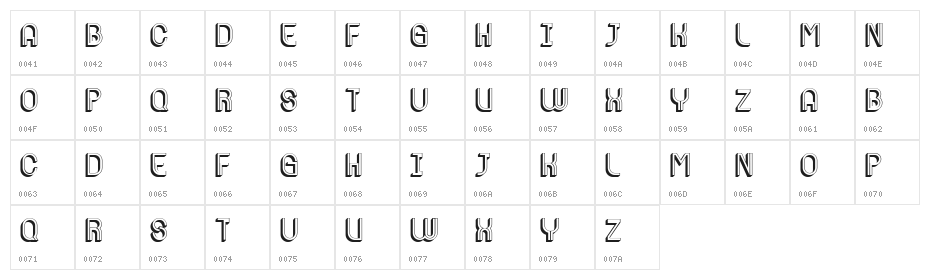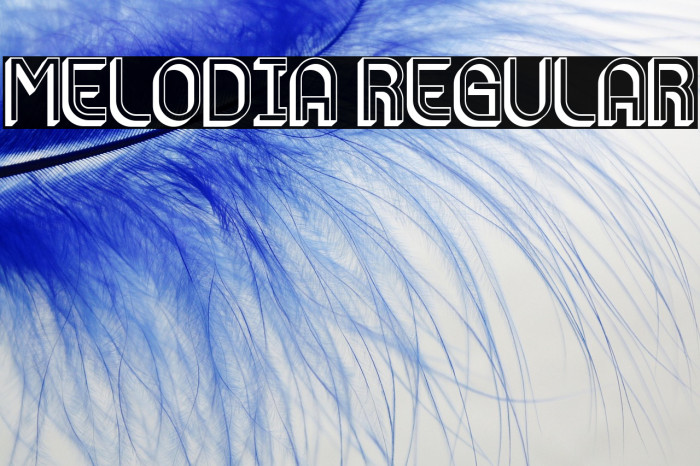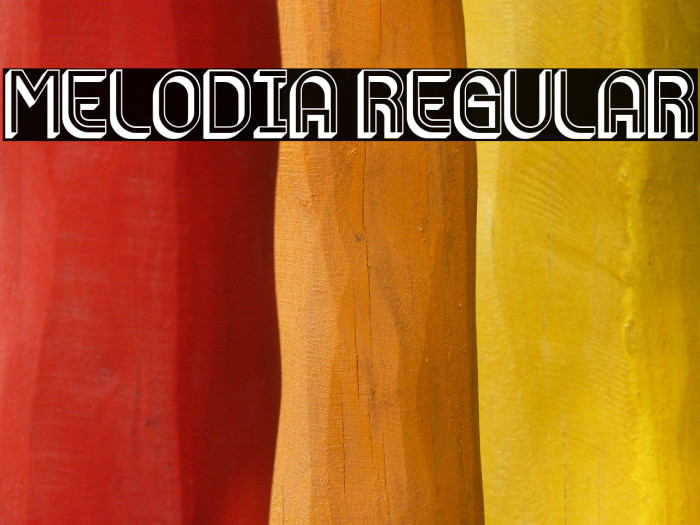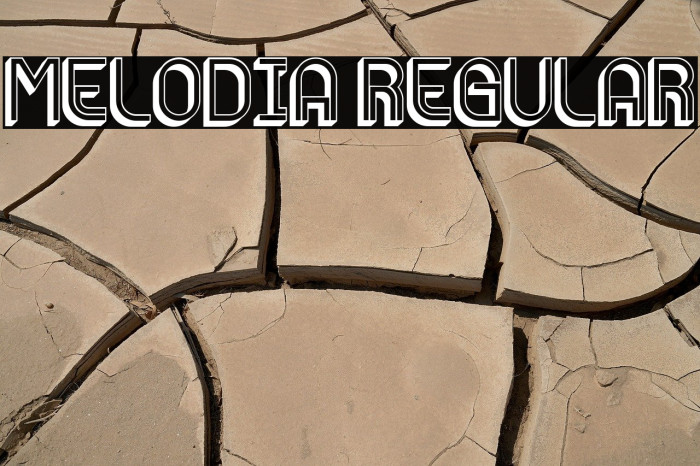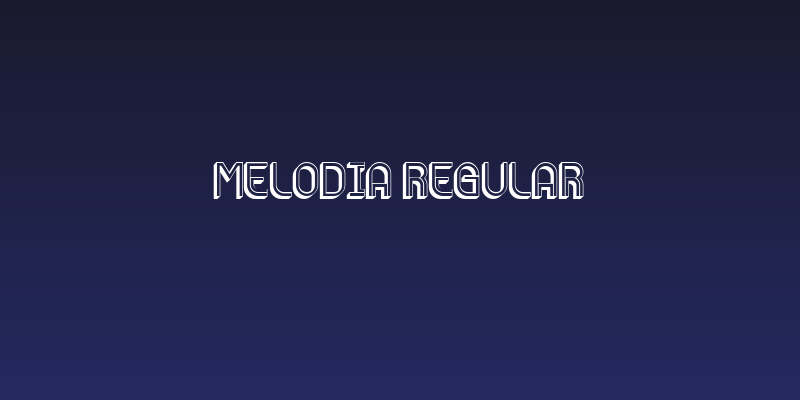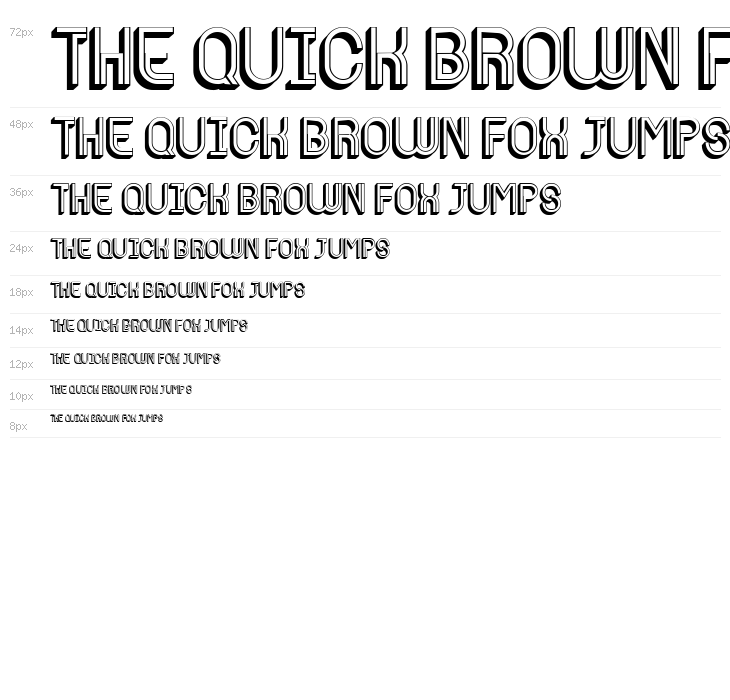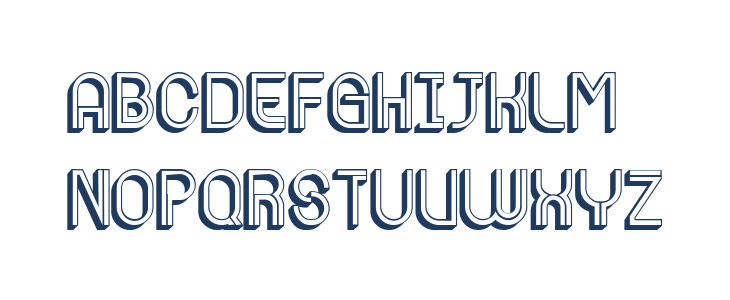
Melodia Regular Font
Melodia Regular Description
This font features a bold, decorative style with a unique three-dimensional effect. The letters are outlined with a shadow that gives them depth and a sense of movement. The geometric structure of each character is consistent, providing a modern and dynamic appearance. The uppercase letters are particularly striking, with clean lines and a strong presence. This font is ideal for making a statement, as its boldness and intricate design draw attention. The spacing between characters is normal, allowing for readability while maintaining its decorative appeal.